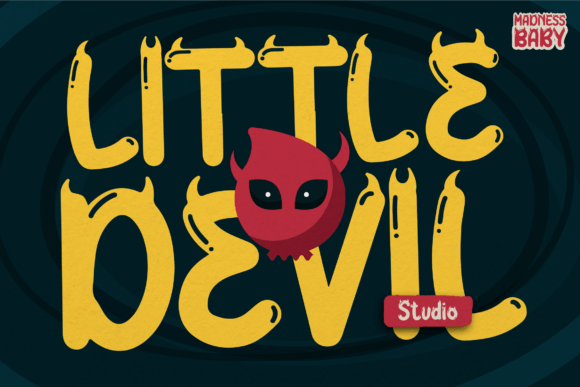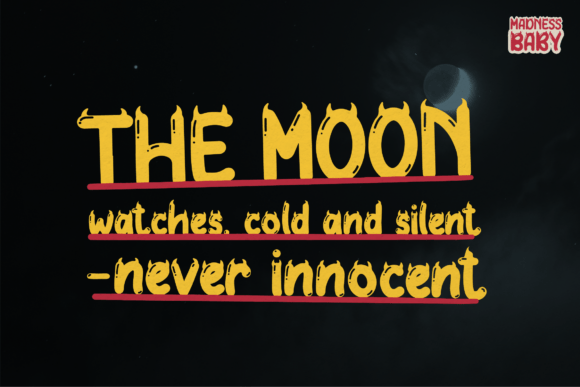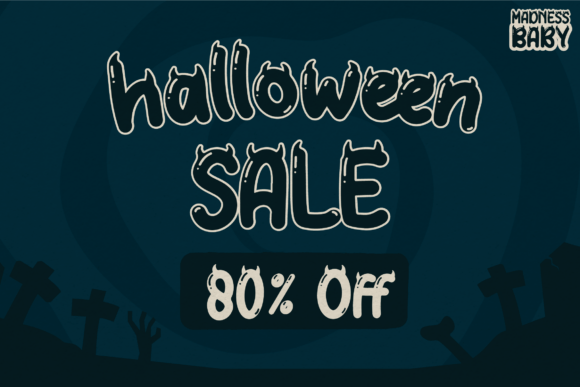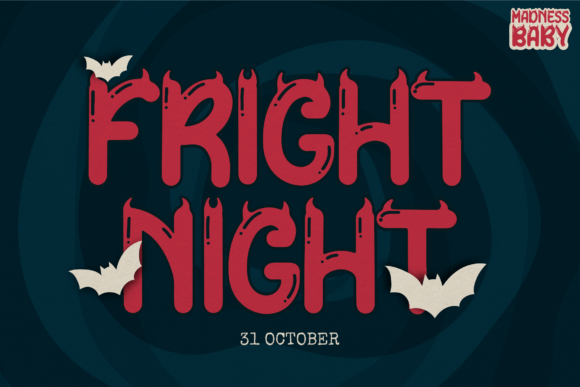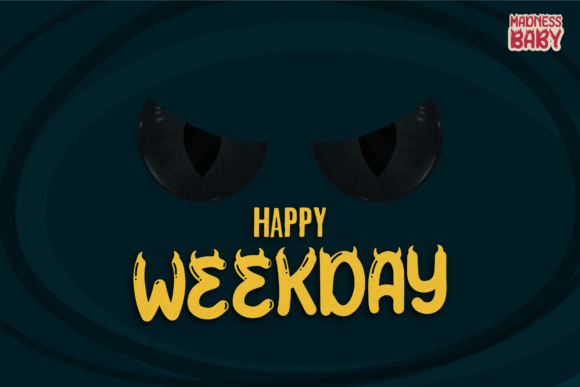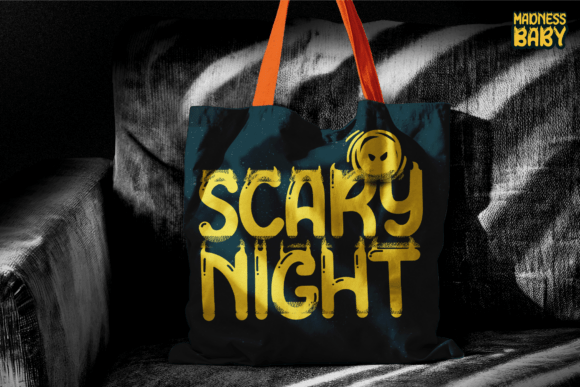
Introduction to Madness Baby Font
Unleash a playful twist of chaos with Madness Baby, the perfect blend of spooky and adorable.
Featuring quirky letterforms with devilish horns and a bouncy, hand-drawn texture, this font adds a mischievous charm to any design Ideal for Halloween themes, horror-inspired graphics, kids’ spooky party invites, or eye-catching branding that stands out.